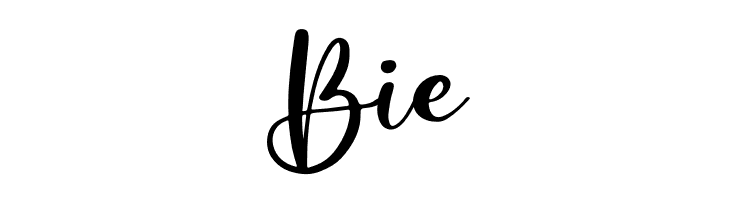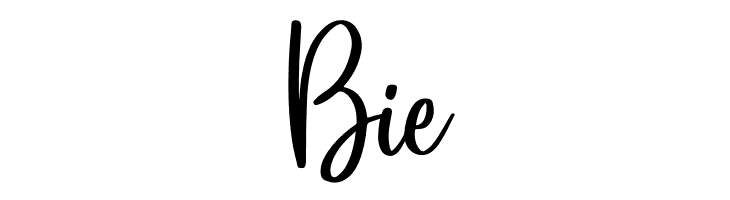
A decorative font of assorted butterfly illustrations.
A clean, geometric font with a minimalist and modern design.
A decorative font with intricate butterfly and floral patterns in uppercase letters and numbers.
A bold, decorative font with butterfly motifs in uppercase and numbers.
A collection of tribal-style butterfly illustrations.
A playful, bold font with rounded, thick strokes and a friendly appearance.
A playful, handwritten font with a lively and informal style.
A playful handwritten font with heart embellishments for a whimsical touch.
A romantic, heart-themed font with handwritten characters inside heart shapes.
A thin, hand-drawn font with a minimalist and airy appearance.
A bold, rounded, and playful hand-drawn font with a friendly aesthetic.
A festive, decorative font with Christmas-themed embellishments on each character.
A whimsical, playful script font with flowing, interconnected letters and a handwritten aesthetic.
A playful, bold outline font with a comic book feel.
A playful, rounded font with whimsical paw print accents.
A playful and eclectic decorative font with unique character designs.
A playful, whimsical font with cursive-like uppercase and simple lowercase letters.
A playful and decorative font with unique patterns and textures in each character.
A whimsical, curly font perfect for playful and fun designs.
A playful and whimsical collection of hand-drawn dingbats featuring various symbols.
A playful, hand-drawn font with curly, rounded letterforms.
A playful, hand-drawn font with thin, whimsical strokes.
A bold, italicized handwritten font with a casual and dynamic style.